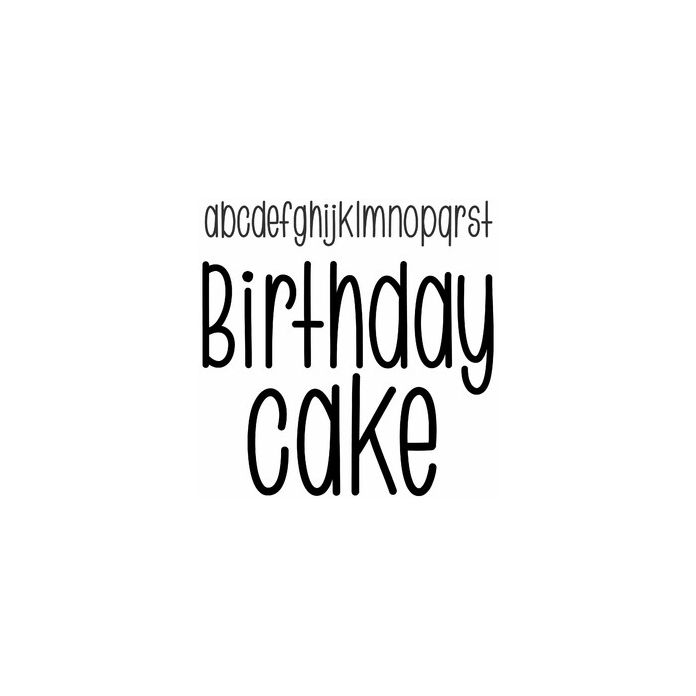
Birthday Cake is slim handwriting print font, cute for signs, cards, monograms, and personalization projects. Includes alphabet, numbers, and punctuation.